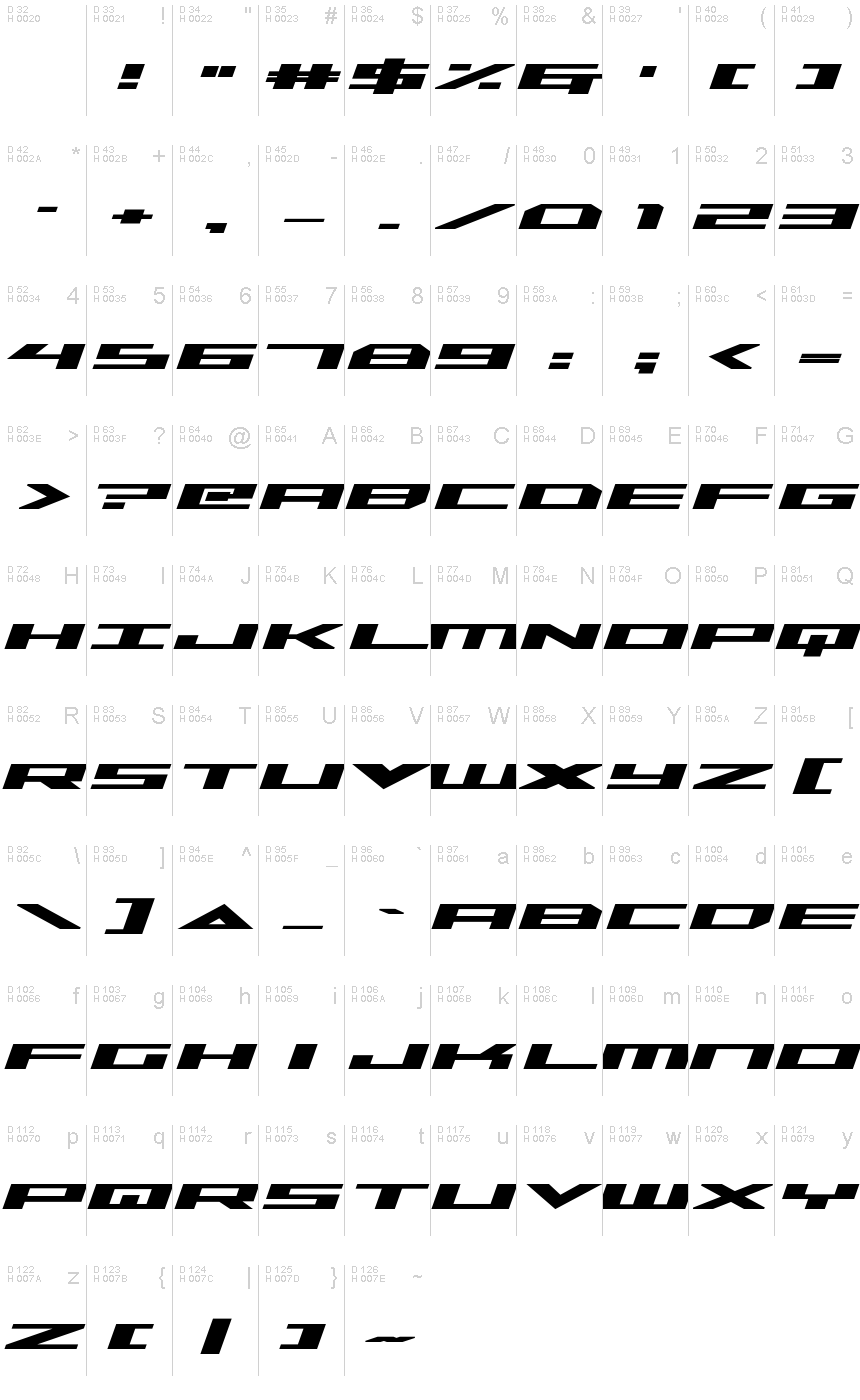
Trireme Expanded Bold Italic by Daniel Zadorozny of Iconian Fonts is a free futuristic display font with an extremely wide, forward-slanting profile. Broad strokes are sliced by sharp openings and long horizontal gaps. The letters look fast, mechanical, and deliberately low-slung.
Its motorsport and science-fiction styling makes it a natural fit for racing game graphics, vehicle branding, and action-film titles. The stretched silhouette can also become part of the imagery on sports merchandise or electronic music artwork, echoing speed lines and streamlined machinery.